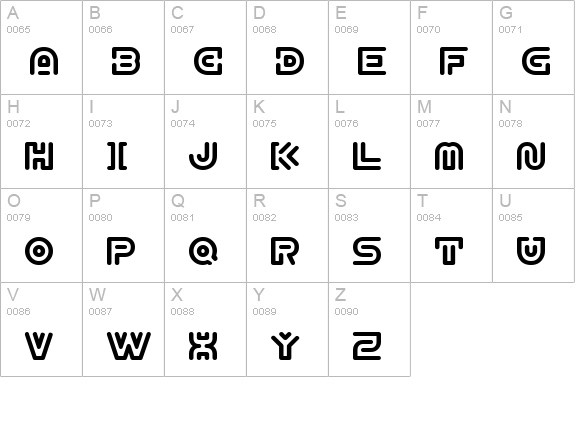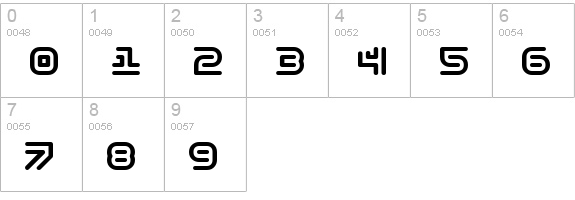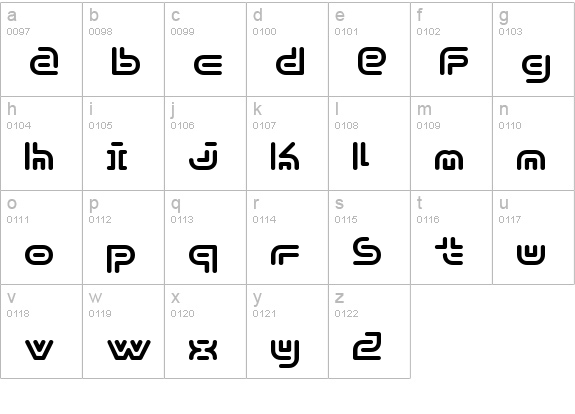
Y2k Subterran Express KG Font Details
Y2k Subterran Express KG font is a captivating and futuristic typeface that blends retro vibes with a modern twist. Its sleek lines and geometric shapes give off a sense of innovation and cutting-edge design. This font is perfect for adding a touch of sci-fi flair to your projects, whether it be for posters, logos, or digital art. The best part? Y2k Subterran Express KG font is completely free to download at FontsMarket.com. Don't miss out on this unique and eye-catching font that will surely make your designs stand out from the crowd. Download it today and let your creativity soar with this one-of-a-kind typeface!